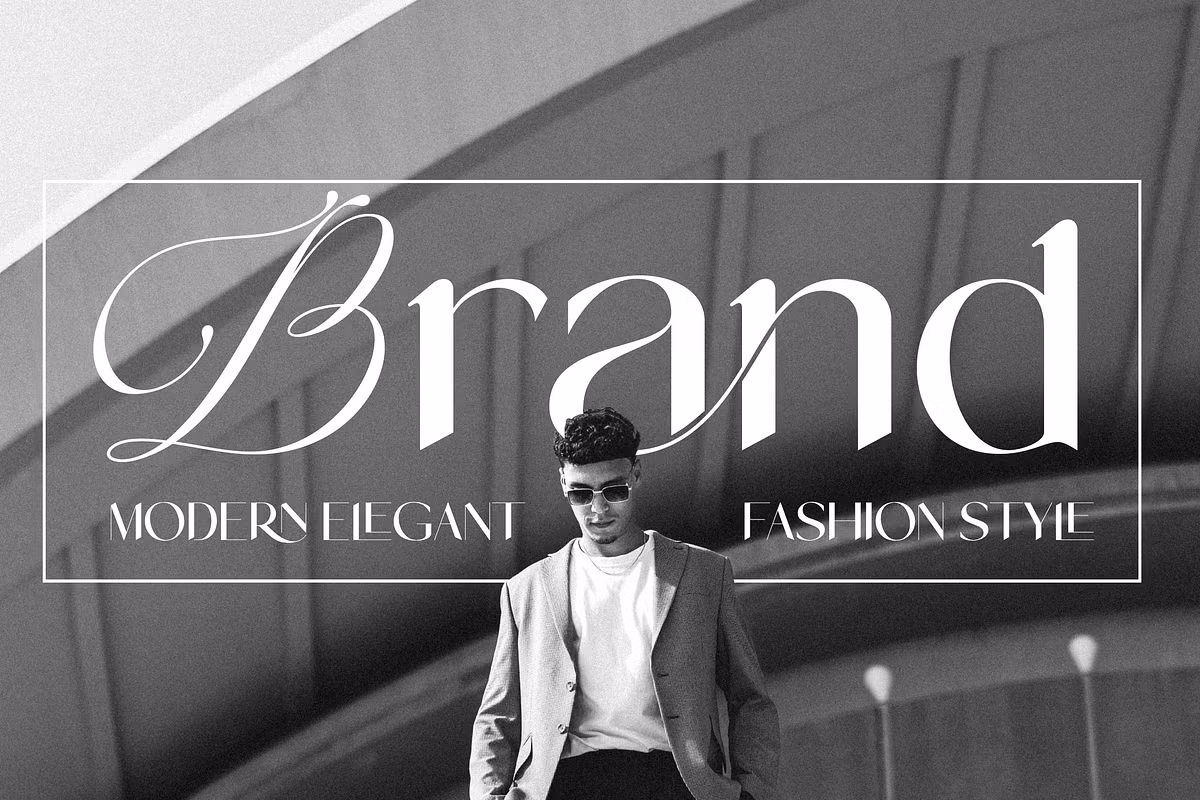
Editorial Adorn: Timeless Script and Sans Serif Font for Design
Editorial Adorn
Editorial Adorn: Timeless Script and Sans Serif Font for Design
When it comes to typography, the font you choose can really make or break a design. It’s all about finding the right fit to convey the personality of a brand or add some visual flair to a project. That’s where Editorial Adorn comes in – it’s a pretty cool combination of script and sans serif fonts that gives off a classic, nostalgic vibe. What’s great about this font combo is that it can elevate any design and add a level of sophistication that’s hard to achieve with other fonts.
Whether you’re working on a branding project, laying out an editorial spread, or just whipping up some social media graphics, Editorial Adorn is a great addition to your design toolkit. It opens up a world of creative possibilities and can help you create some really stunning visuals. With its timeless feel and versatility, Editorial Adorn is perfect for anyone looking to add a little something extra to their designs.
Sample typography using Editorial Adorn font
Typography showcasing the elegance of Editorial Adorn.
Design Style of Editorial Adorn
The way Editorial Adorn looks is really nice because it combines two different styles, script and sans serif, in a way that works well together. The script part is elegant and flowing, like the kind of writing you see in old, fancy books. On the other hand, the sans serif part is modern and clean, which makes the whole font look fresh.
When you put these two styles together, you get a balance that is easy on the eyes and can be used in many different kinds of design projects, from simple to complex. This makes Editorial Adorn a very versatile font that can be used in a lot of different ways, which is really useful for designers who want to create something that looks good and works well.
Editorial Adorn has a special quality that makes it stand out – it’s able to bring back memories of the past while still feeling modern and fresh. The script part of the font adds a personal and emotional touch, which makes it perfect for things like wedding invitations, birthday cards, or any design where you want to connect with the people seeing it.
Elegant script and sans serif combination
Combination of script and sans serif styles in Editorial Adorn.
Character Sets and Punctuation
Editorial Adorn has everything you need to make your design look great. It comes with a full set of characters, including punctuation, numbers, and special characters. This means your text will look good and work well too. The punctuation marks help you build sentences that make sense, and the numbers give you the freedom to show any data you want.
With Editorial Adorn, you can create text that is both pretty and practical. It’s got all the details you need to make your design stand out. Whether you’re working on a big project or just a small one, Editorial Adorn has got you covered. You can use it to add polish to your design and make it look professional.
The font also includes some extra characters that can be used to add special touches to your design without needing any fancy software. This is really helpful for designers who want to add some unique flourishes to their work, like special letter combinations or alternative characters.
Extensive character set displayed in Editorial Adorn
Showcasing the extensive character set of Editorial Adorn.
Extensive Language Support
In today’s world, where everything is connected, it’s really important to have a font that can be used in many different languages. Editorial Adorn is great at this, it can be used to write in lots of languages like English, Italian, French, Spanish, German, Portuguese, Dutch, Danish, Norwegian, and Swedish. This means it’s perfect for big brands or projects that want to talk to people from all around the world.
It’s a great way to make sure everyone can understand your message, no matter where they’re from. With Editorial Adorn, you can reach a really diverse group of people, and that’s a big advantage in a world where everything is global.
Use Cases for Editorial Adorn
In real-world applications, Editorial Adorn really stands out in a variety of situations. Let’s take a look at some specific examples of how this font can enhance your design.
• Branding: Utilize Editorial Adorn in logo designs to create a distinctive brand identity that blends sophistication with modernity.
• Editorial Layouts: Perfect for magazines and online articles, this font enhances readability while adding character to headings and body text.
• Social Media Visuals: Capture attention on platforms like Instagram and Facebook by using Editorial Adorn in promotional graphics, making your content stand out.
• Invitations and Greeting Cards: The script aspect of Editorial Adorn lends itself beautifully to personal projects, such as wedding invitations and special occasion cards.
That’s why it’s a must-have for any designer. Whether you’re creating a brand’s visual identity, designing content for magazines or websites, or making social media posts that grab people’s attention, Editorial Adorn gives you the elegance and flexibility you need to create amazing results. By using Editorial Adorn, you can add a touch of beauty to your typography and take your design projects to the next level. It’s perfect for making your work look refined and stunning. With its versatility and sophistication, Editorial Adorn is an essential tool for anyone who wants to create high-quality designs.